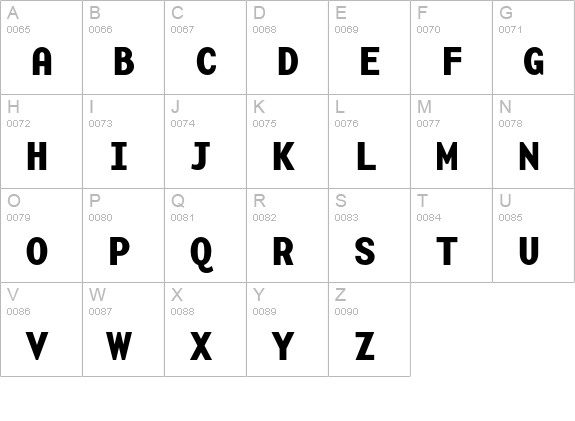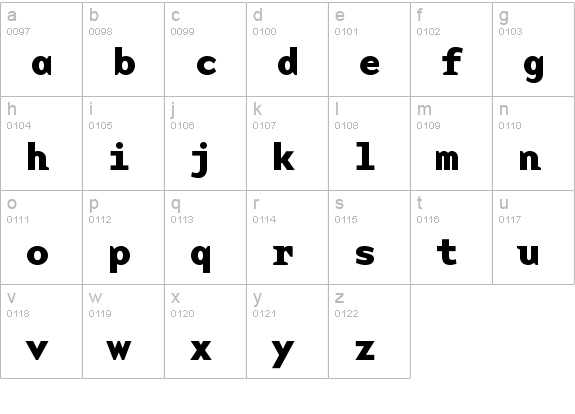
BaseMonoWideBold Font Details
BaseMonoWideBold is a versatile and modern typeface designed for a variety of design projects. With its bold and wide characters, this font exudes strength and stability, making it perfect for headlines, titles, and branding materials. The clean and streamlined design of BaseMonoWideBold ensures readability and impact across different mediums. One of the best features of BaseMonoWideBold is that it is completely free to download at FontsMarket.com. This means you can easily access this high-quality font for your personal and commercial projects without any cost. Whether you're working on a website, poster, logo, or any other creative endeavor, BaseMonoWideBold is a reliable choice that will elevate your design with its bold presence and modern appeal. Download BaseMonoWideBold today and enhance your typography game with this fantastic free font.